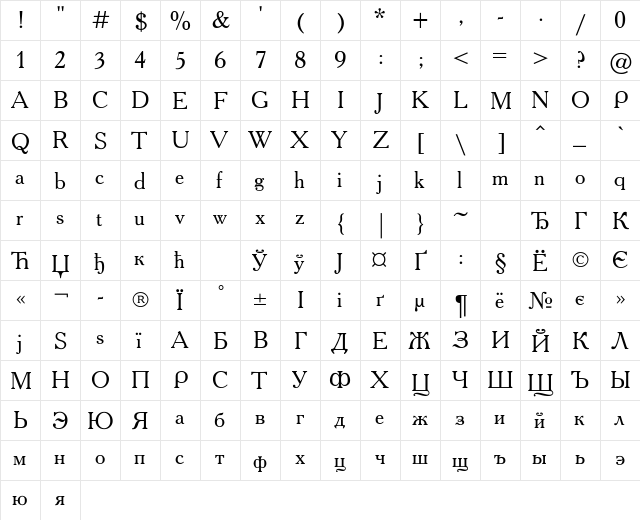
font2 Regular
Design Context for font2 Typeface
font2 takes a measured approach to typography — its balanced proportions and neutral character make it a reliable workhorse for both digital and print work.